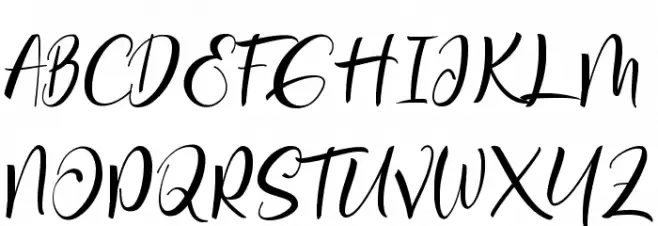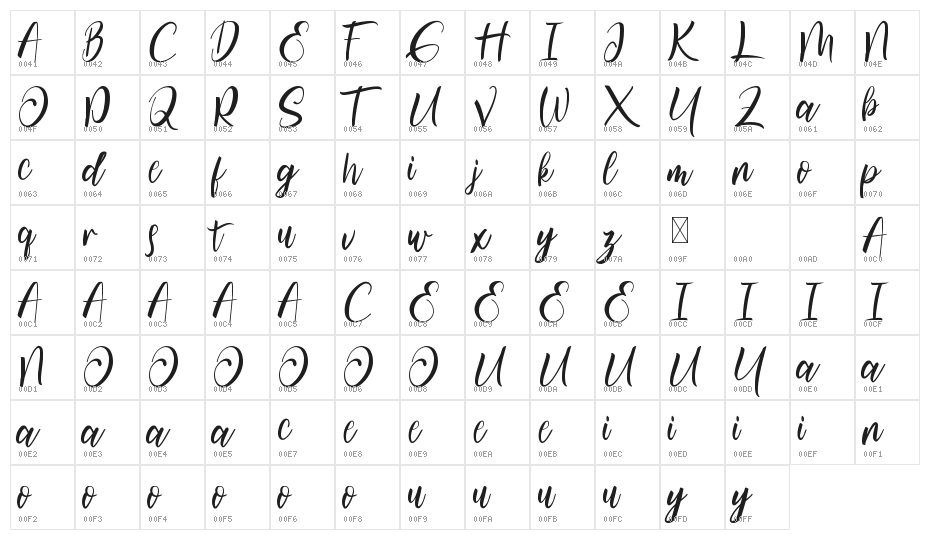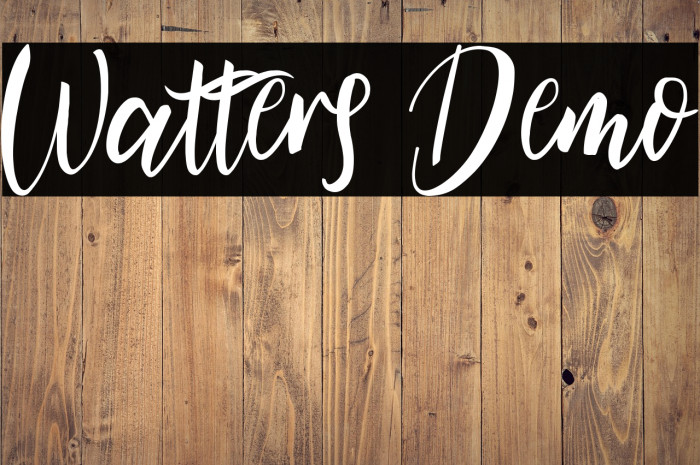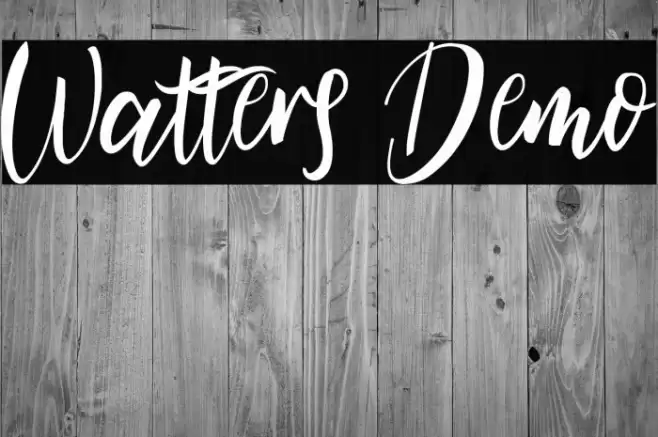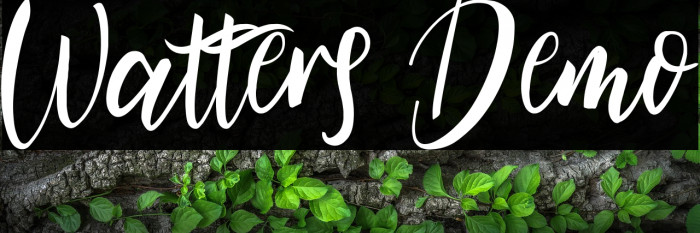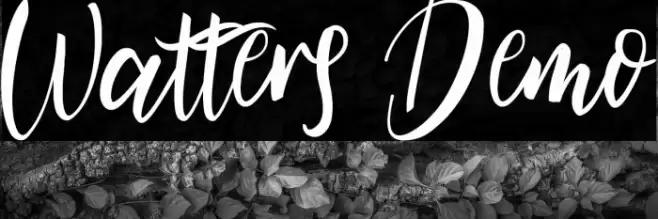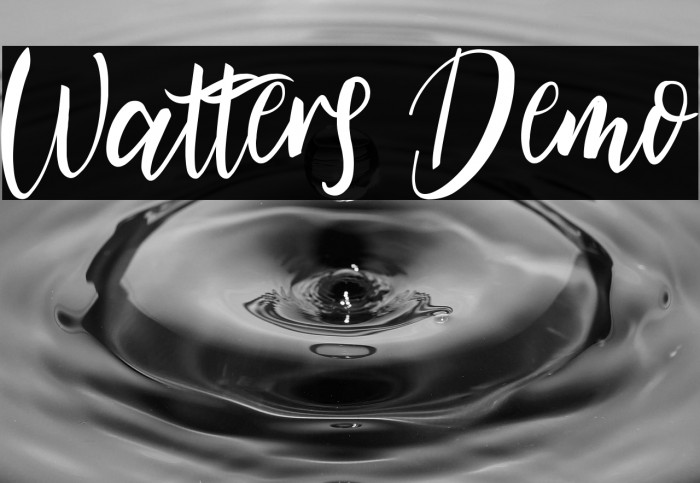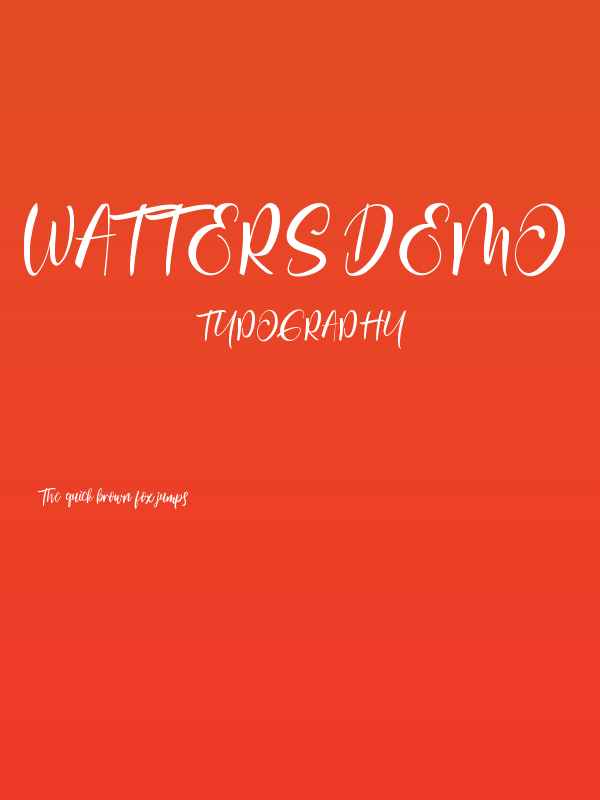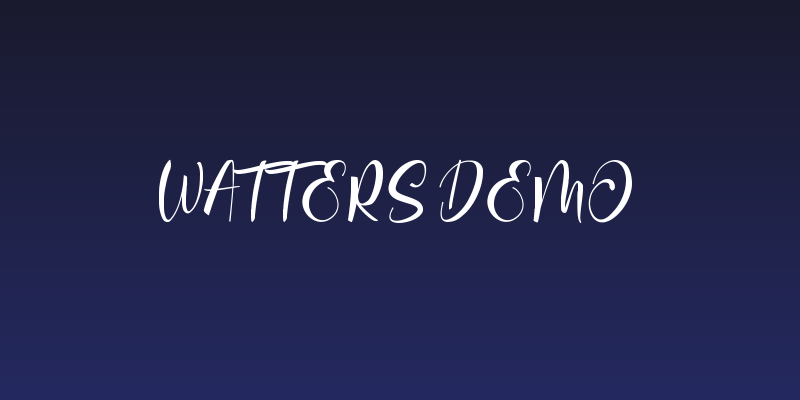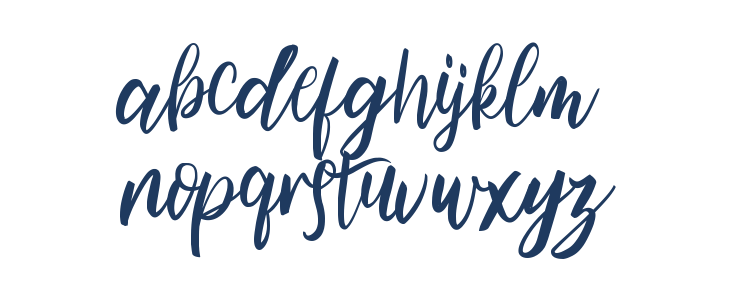
Watters Demo Font
Watters Demo Description
This font features a dynamic and expressive script style, characterized by its flowing, cursive letterforms. The strokes are smooth and fluid, with a natural handwritten appearance that conveys elegance and creativity. The uppercase letters are slightly more structured, providing a nice contrast to the more freeform lowercase letters. The overall design is both artistic and legible, making it suitable for a variety of creative applications. The font's unique style is enhanced by its varying stroke thickness, adding a sense of movement and vitality to the text.
| Use Case | Logos, Invitations, Artistic designs |
| Proposed Projects | Ideal for wedding invitations, greeting cards, branding projects, and artistic designs. |